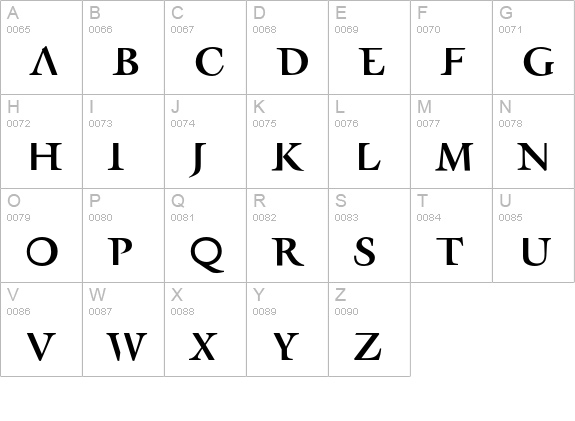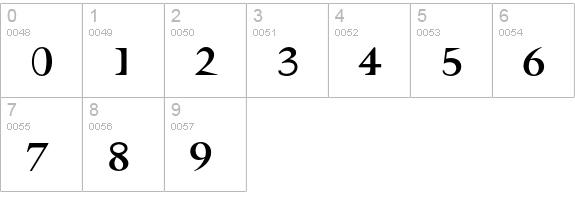
AFRetrospecta-Bold Font Details
AFRetrospecta-Bold is a strong, high-contrast variant in the AFRetrospecta typeface family \xE2\x80\x94 well suited to headlines, attention-grabbing titles, and strong calls-to-action.